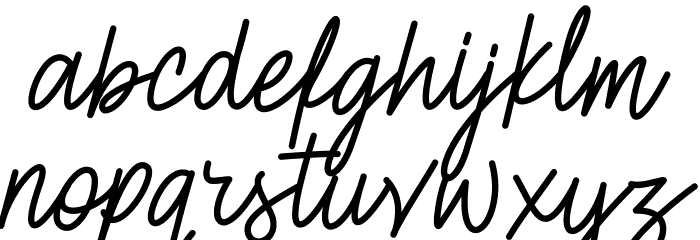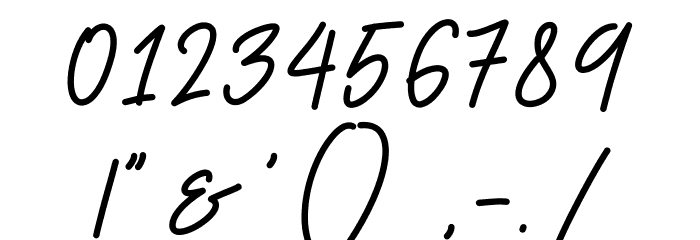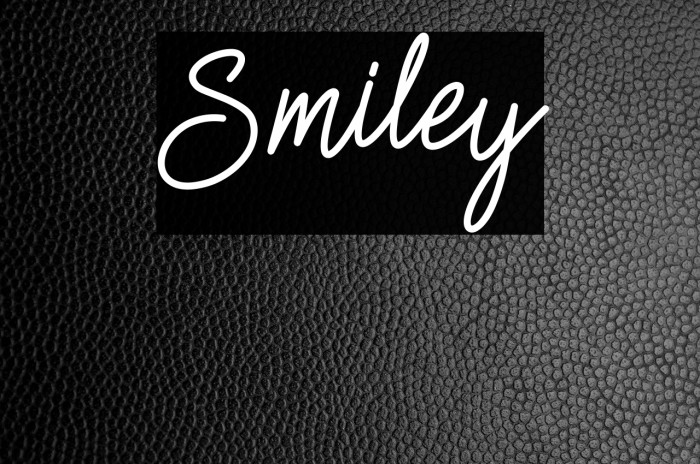
Smiley Font
This font features a lively and dynamic handwritten style, characterized by its fluid and cursive strokes. The letters have a natural flow, with each character seamlessly connecting to the next, creating a sense of movement and elegance. The uppercase letters are slightly more structured, while the lowercase letters exhibit a playful and casual demeanor. The numerals and special characters maintain the same energetic style, ensuring consistency throughout. This font exudes a personal and approachable feel, making it ideal for projects that require a touch of personality and warmth.
A lively, cursive handwritten font with fluid strokes and a personal touch.
- Proposed Projects: Ideal for greeting cards, invitations, personal branding, and creative projects that require a handwritten touch.
- Overall Style: Casual, Elegant
- Use Case: Logos, Invitations, Personal Branding